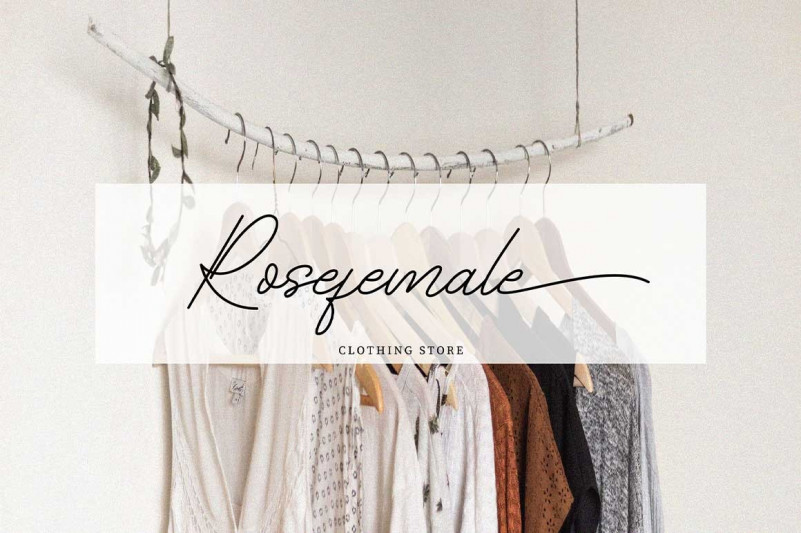
Arcamanick Handwritten Font
This is casual signature font, with clean mono-line stroke, slanted and fun character. Arcamanick is perfect for branding projects, logo, wedding designs, social media posts, advertisements, product packaging, product designs, label, photography, watermark, invitation, stationery and any projects that need handwriting taste.